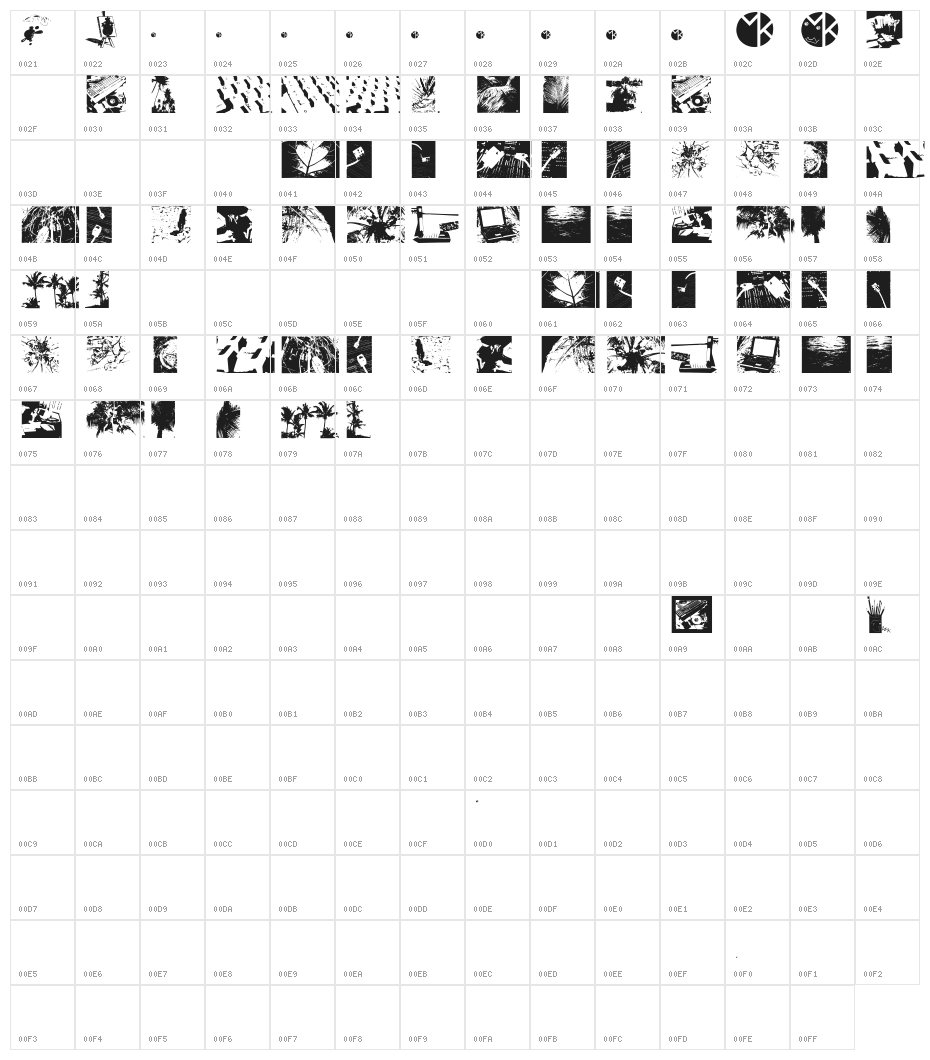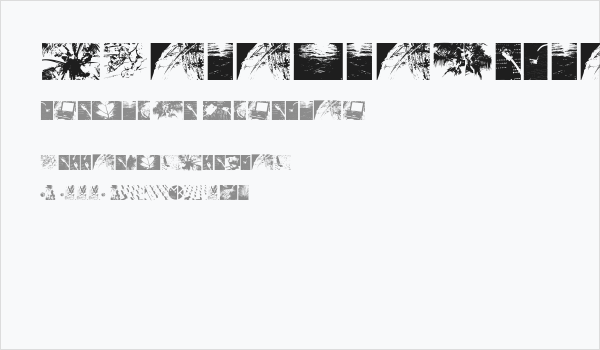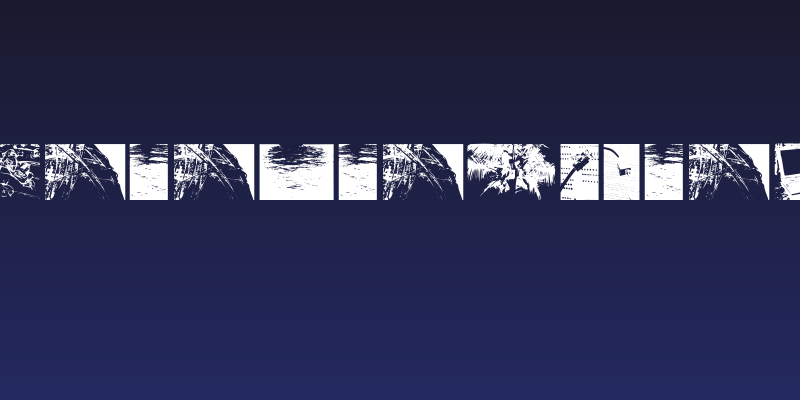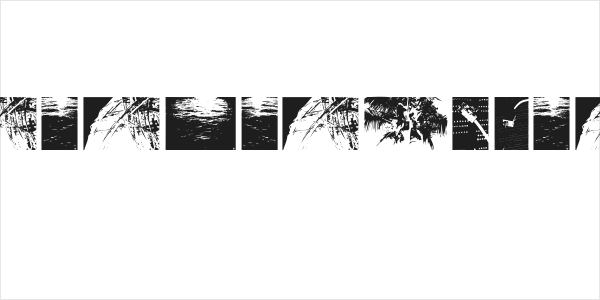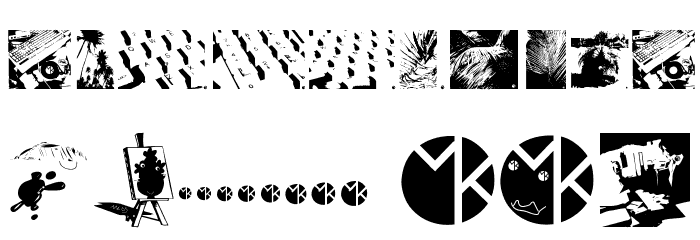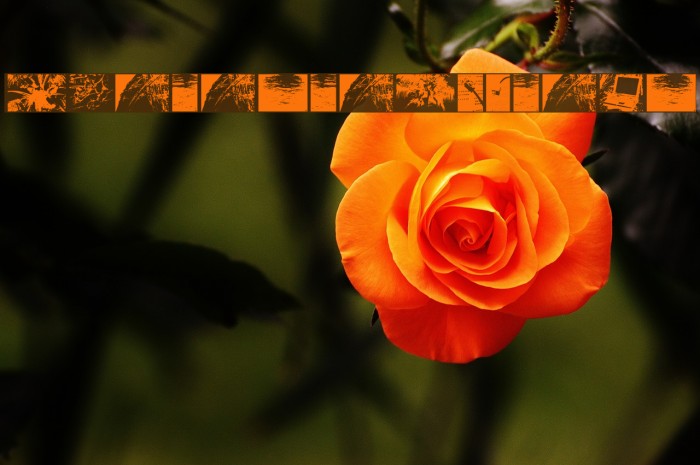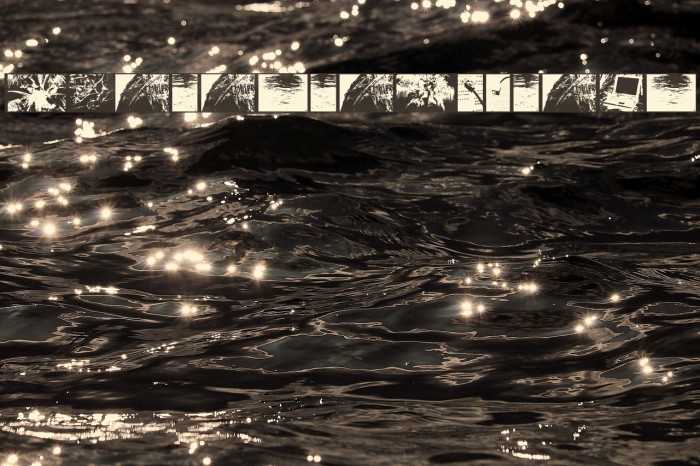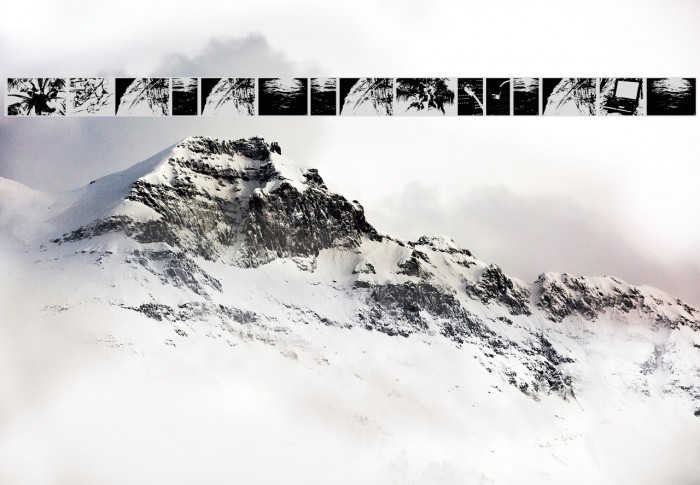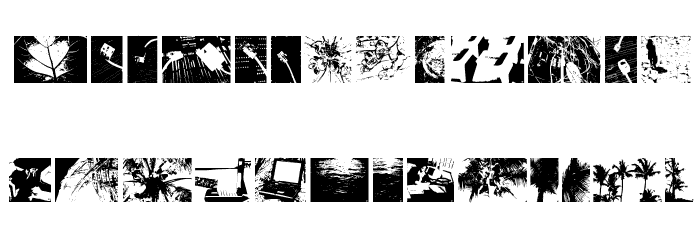
PhotosToVectors Font
PhotosToVectors Description
A highly decorative and illustrative font where each character is represented by a unique, detailed black-and-white vector image, often resembling photographs or artistic scenes rather than traditional letterforms.
| Overall Style | Decorative, Artistic, Experimental |
| Use Case | Logos, Posters, Art pieces, Headlines |
| Proposed Projects | Art projects, posters, album covers, creative branding, experimental design, visual storytelling. |